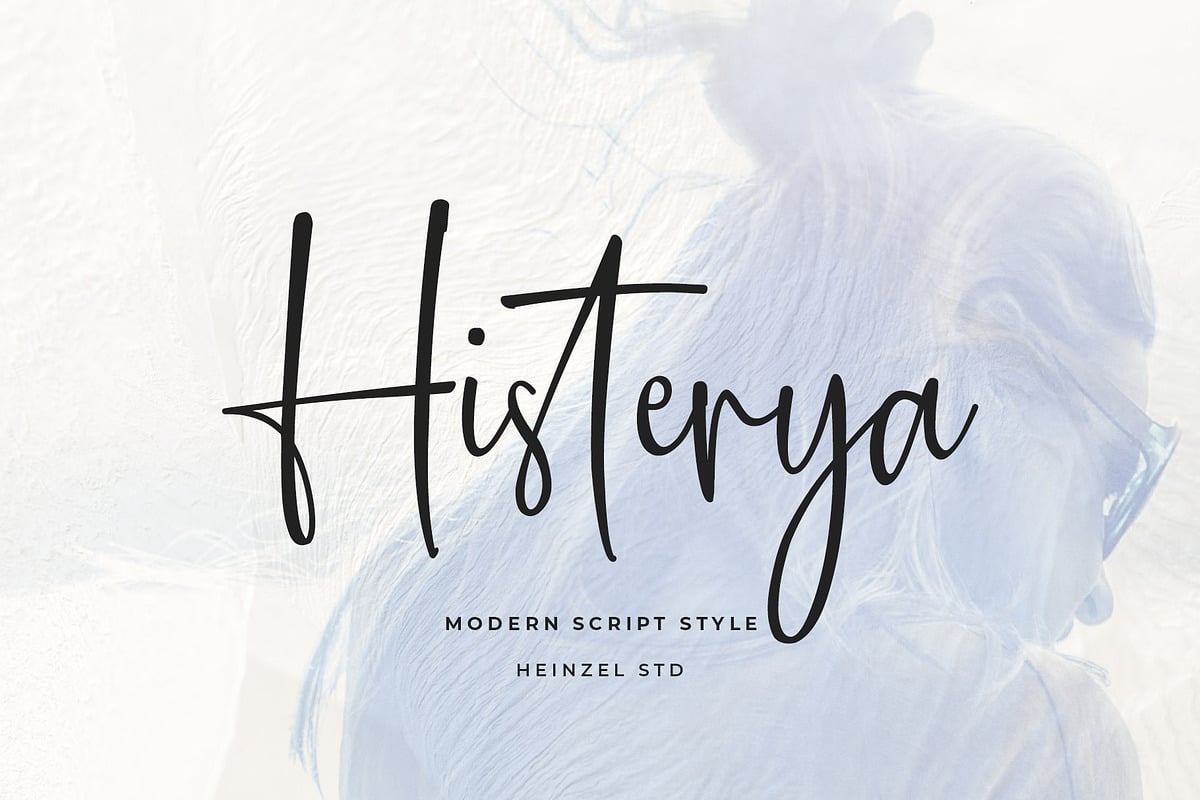
Histerya - Modern Script Font
Histerya is the elegant, flowing script font that transforms every project into something beautifully unforgettable.
With its varying baseline, smooth strokes, and stunning ligatures, Histerya captures the authentic charm of handwritten lettering while maintaining refined, professional appeal. Whether you're crafting wedding invitations, greeting cards, logos, website headers, or social media designs, this typeface brings effortless sophistication to every application.
Histerya Features:
- Stunning ligatures for natural, fluid text flow
- Multilingual support: ÁÂÃÄÅÆÇÈÉÊËÌÍÎÏÐÑÒÓÔÕÖØÙÚÛÜÝÞß àáâãäåæçèéêëìíîïðñòóôõöøùúûüýÿþ